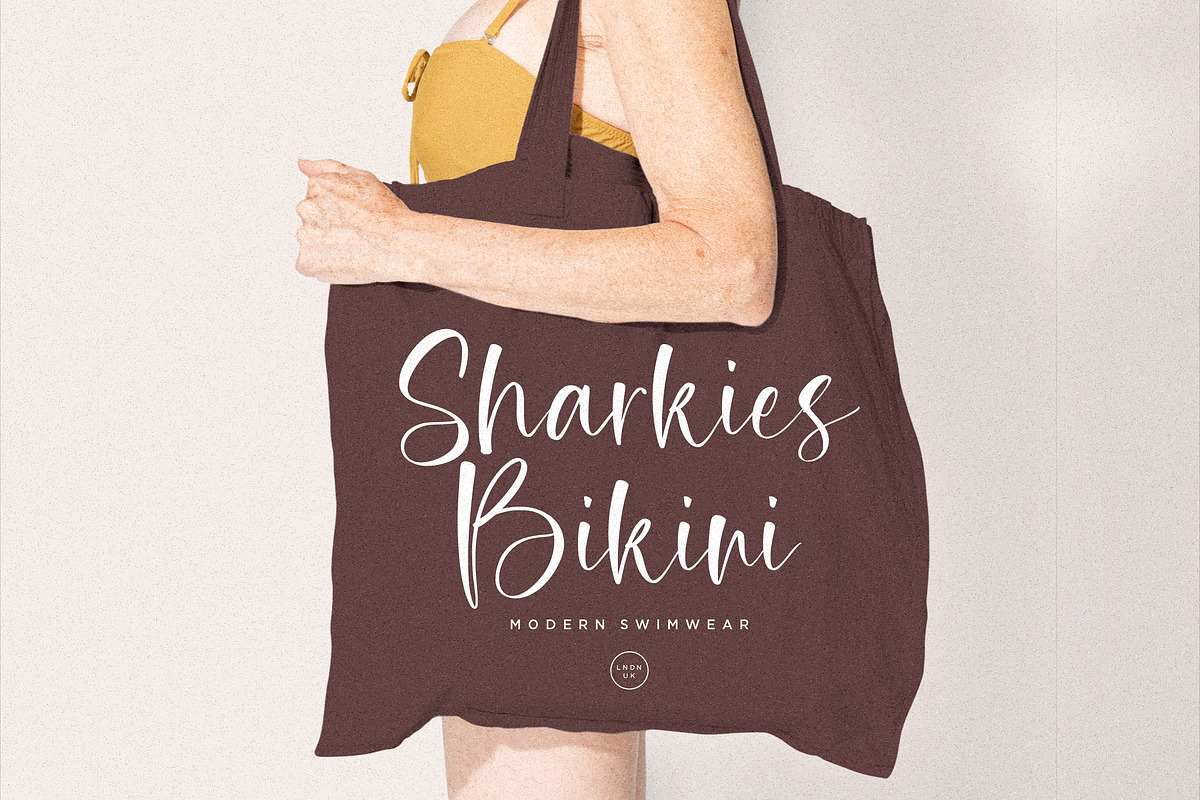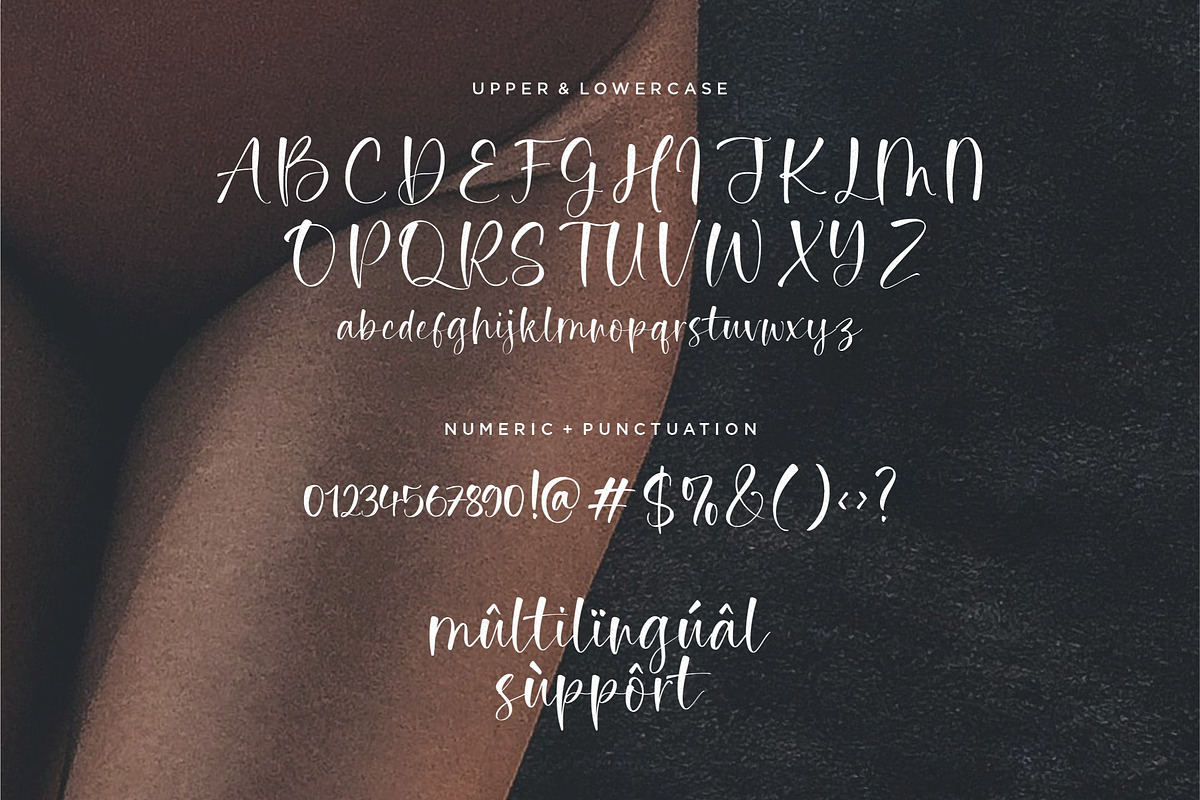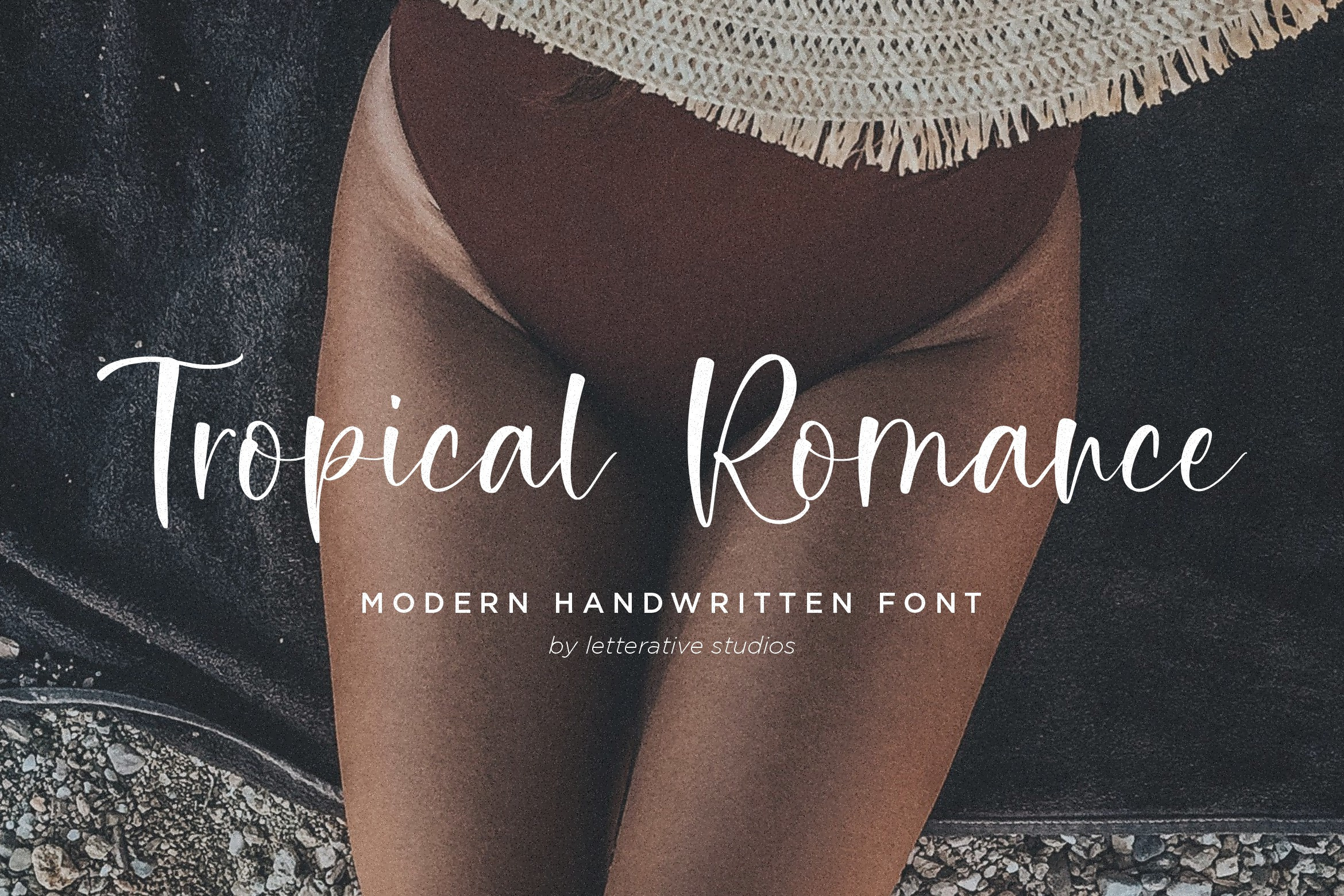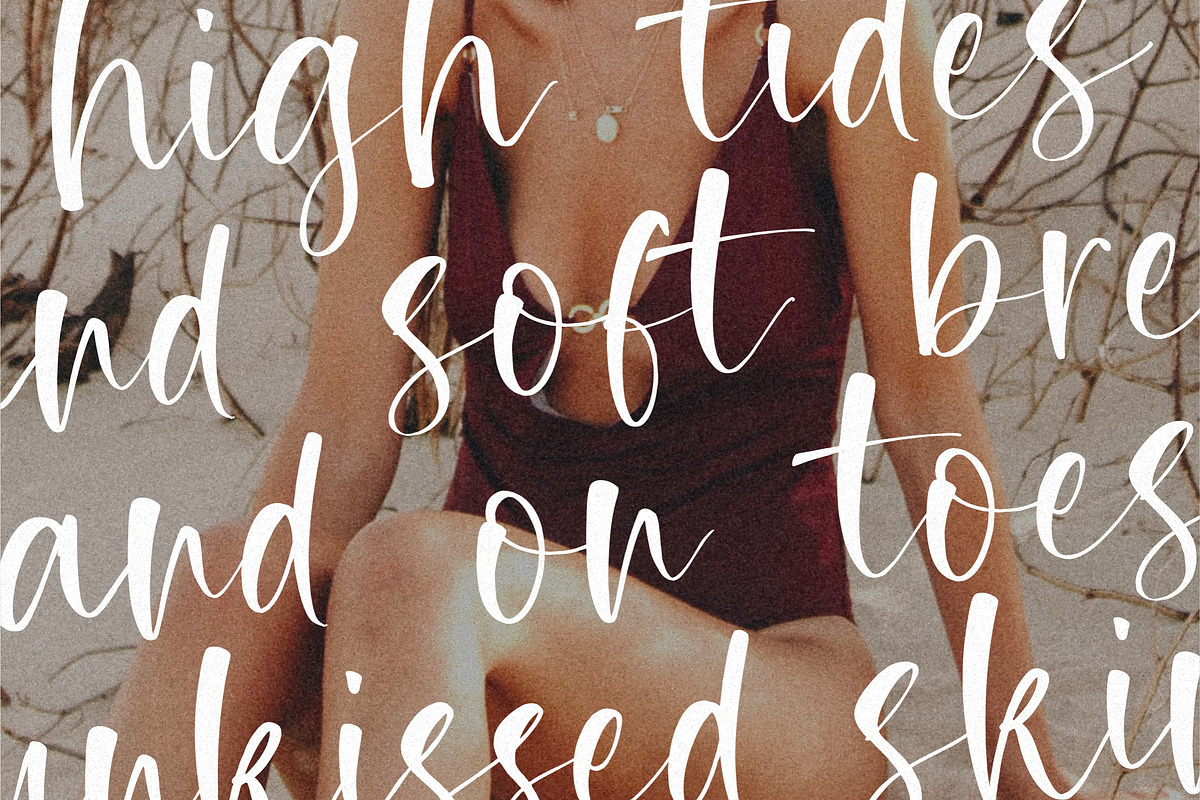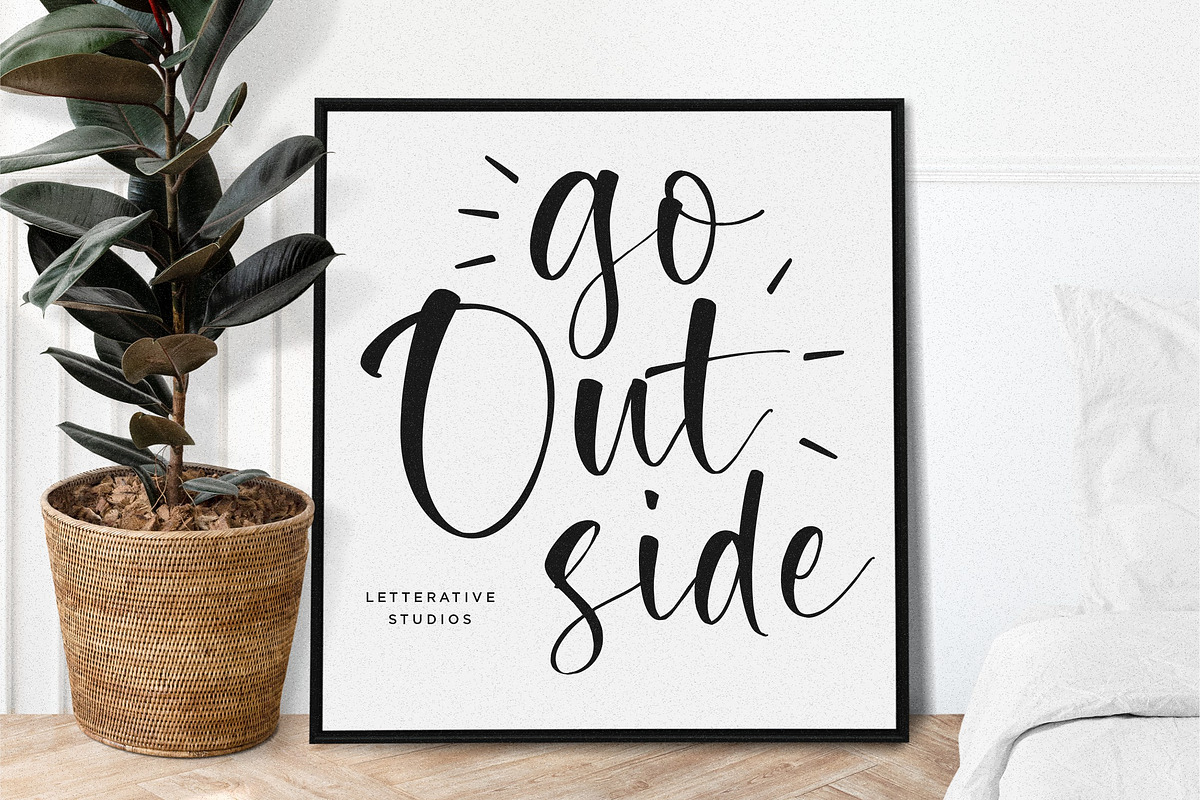
Tropical Romance - Handwritten Font
Introducing by Letterative Studio : Tropical Romance Font
Tropical Romance is a Modern Handwritten Font. Whether you’re using it for crafts, digital design, presentations, or making greeting cards, this font has the potential to become your favorite go-to font, no matter the occasion!